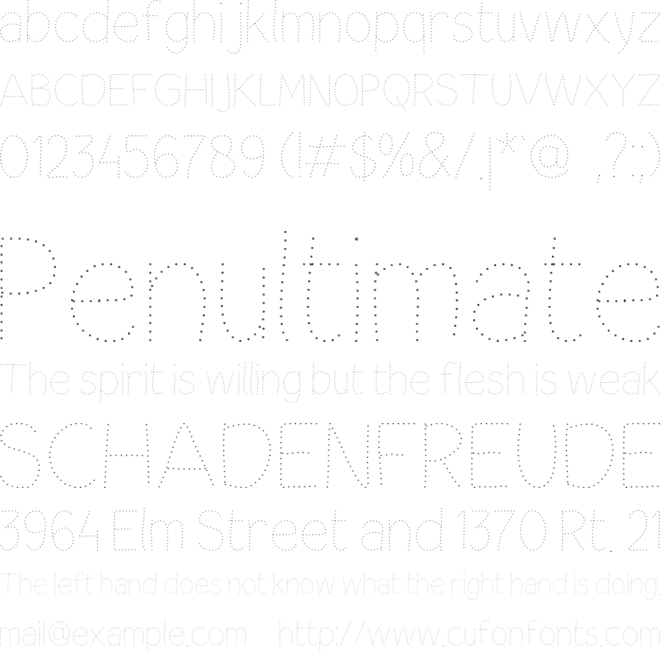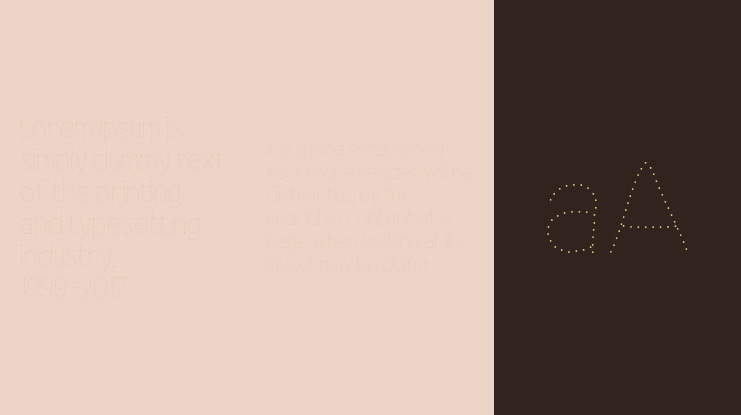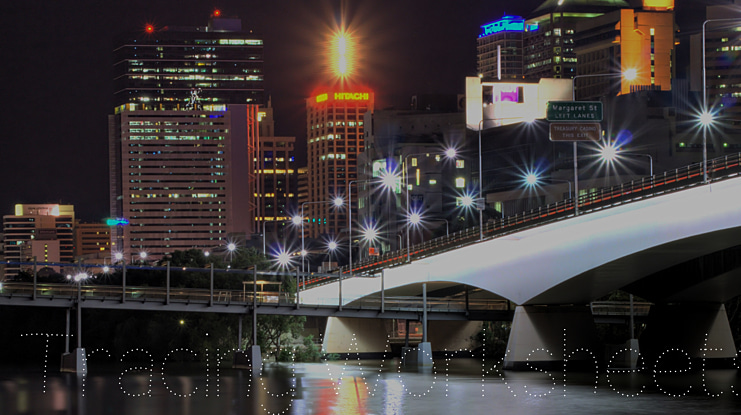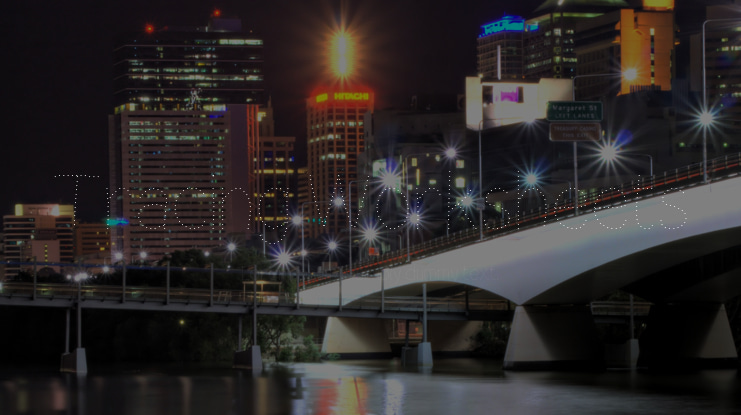
Tracing Worksheets Font
My wife is a playgroup teacher, and I often help her to make some worksheets. When I realize there's no free fonts proper enough IMO to make expected worksheets, and no affordable commercial fonts for us, then I made my own letters needed and I think why I'm not build them as font!
So I learn how to develop further characters, and to build a font. And here's the result. I hope this font helps you, especially for preschool and elementary school teacher all around the world!